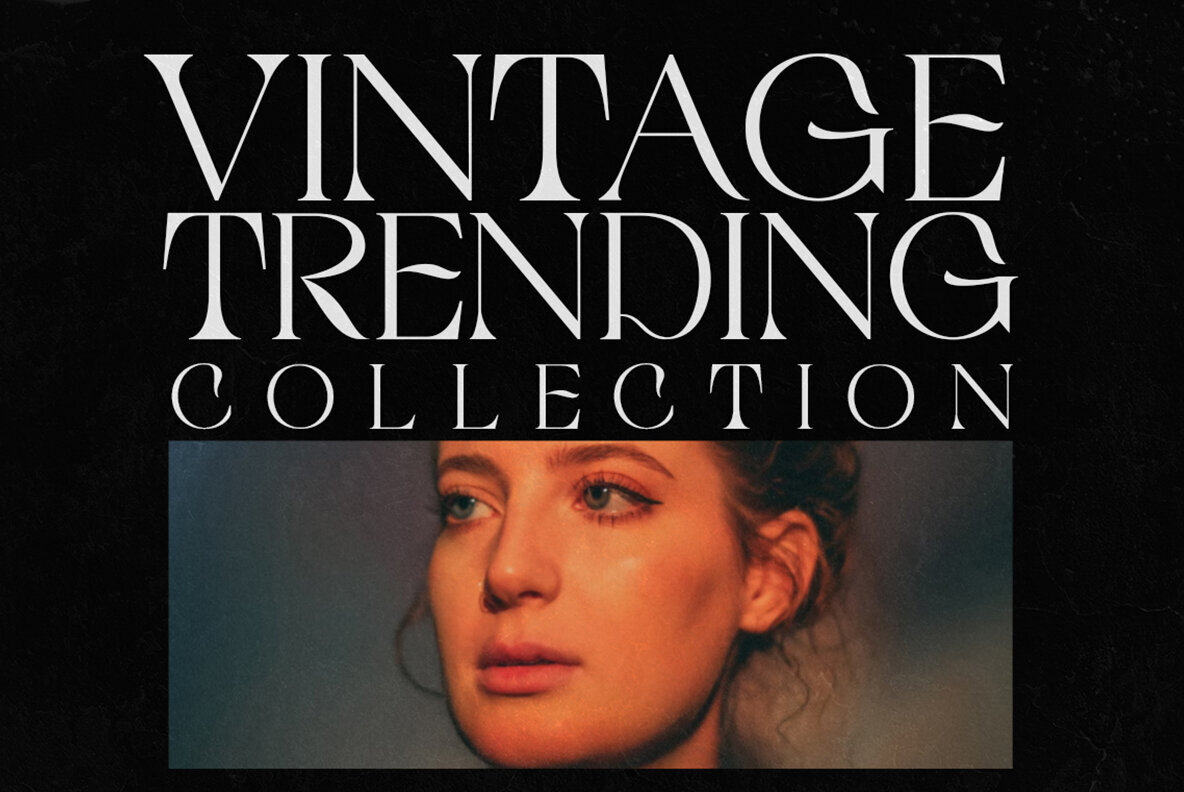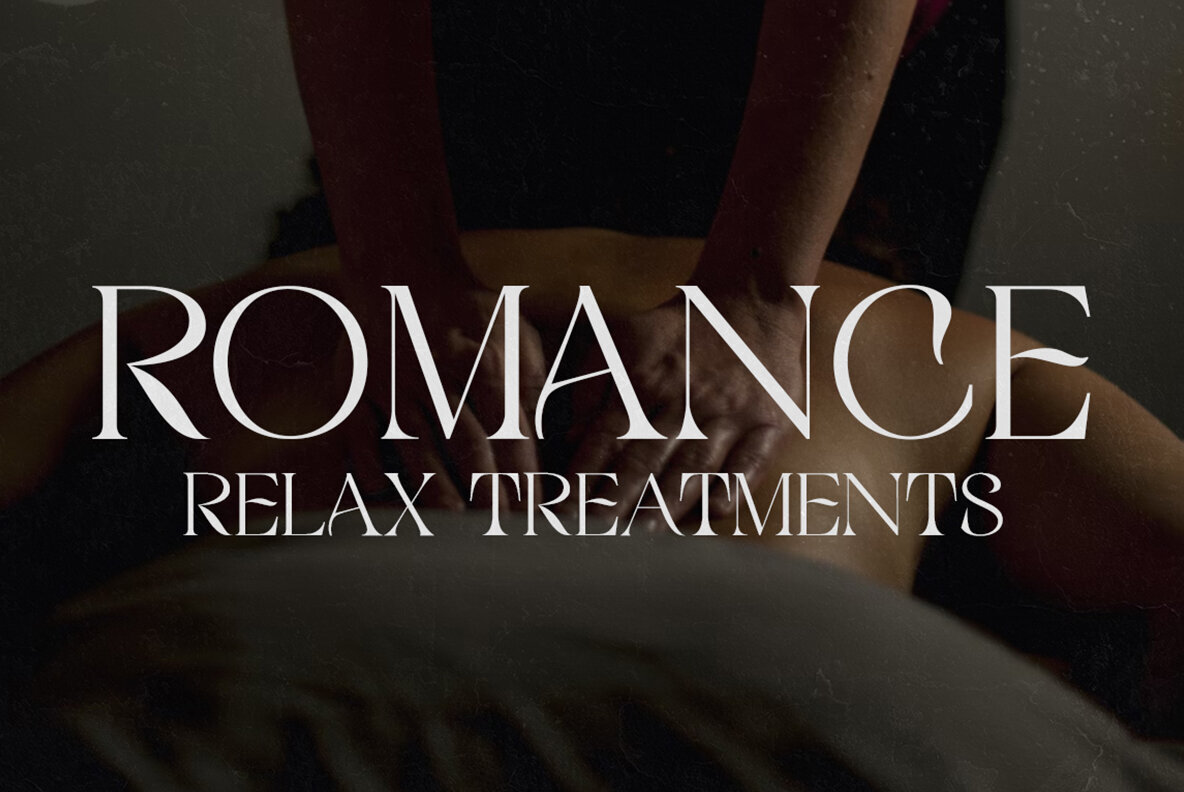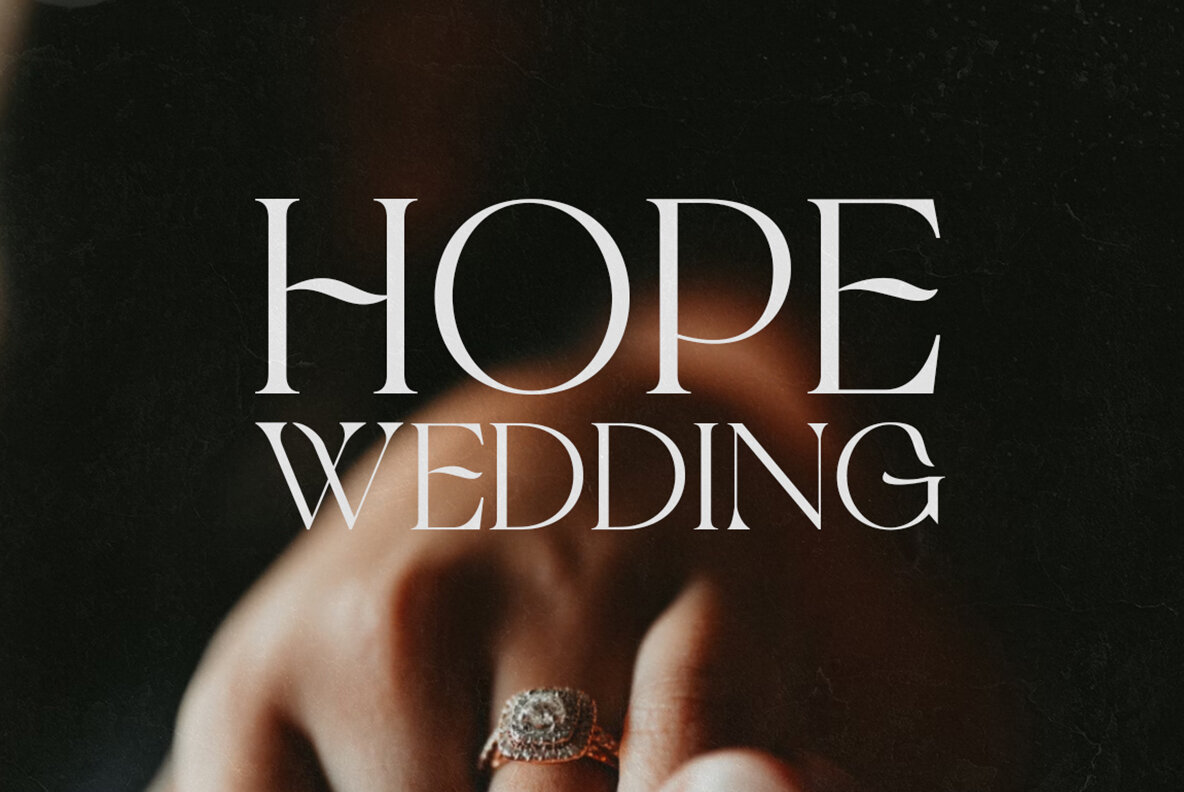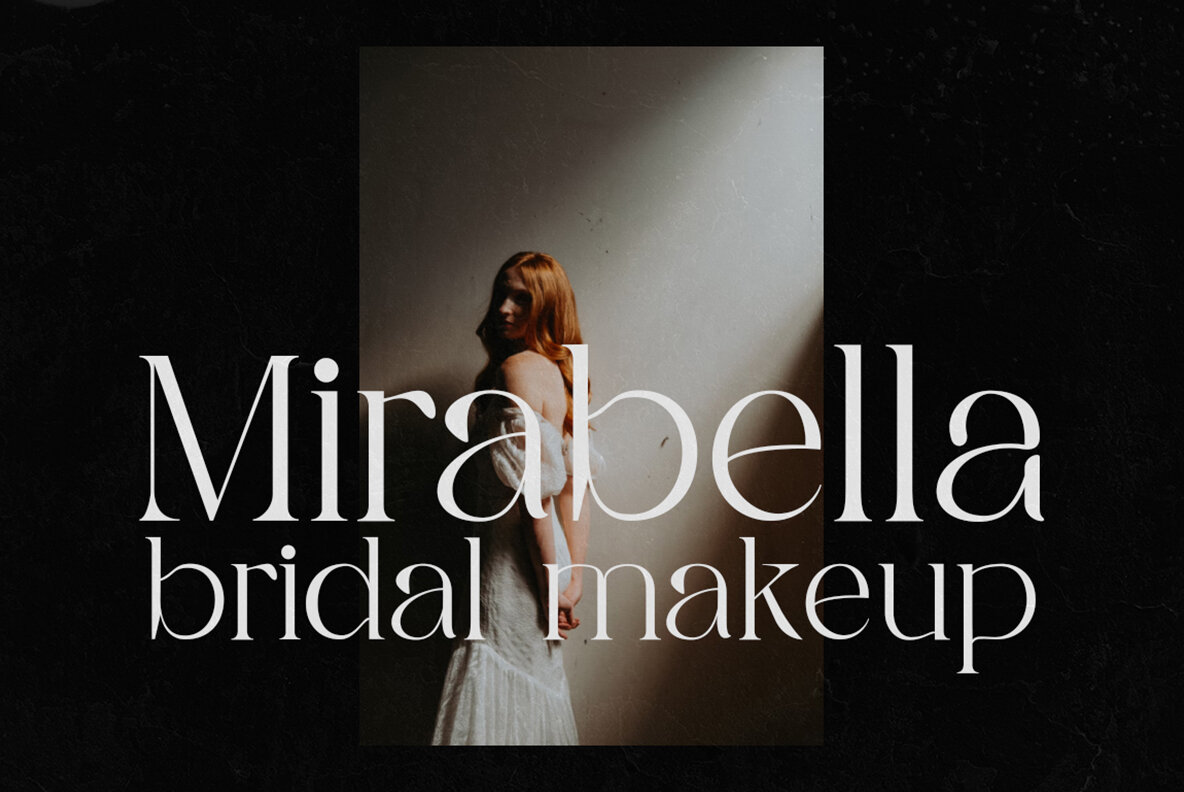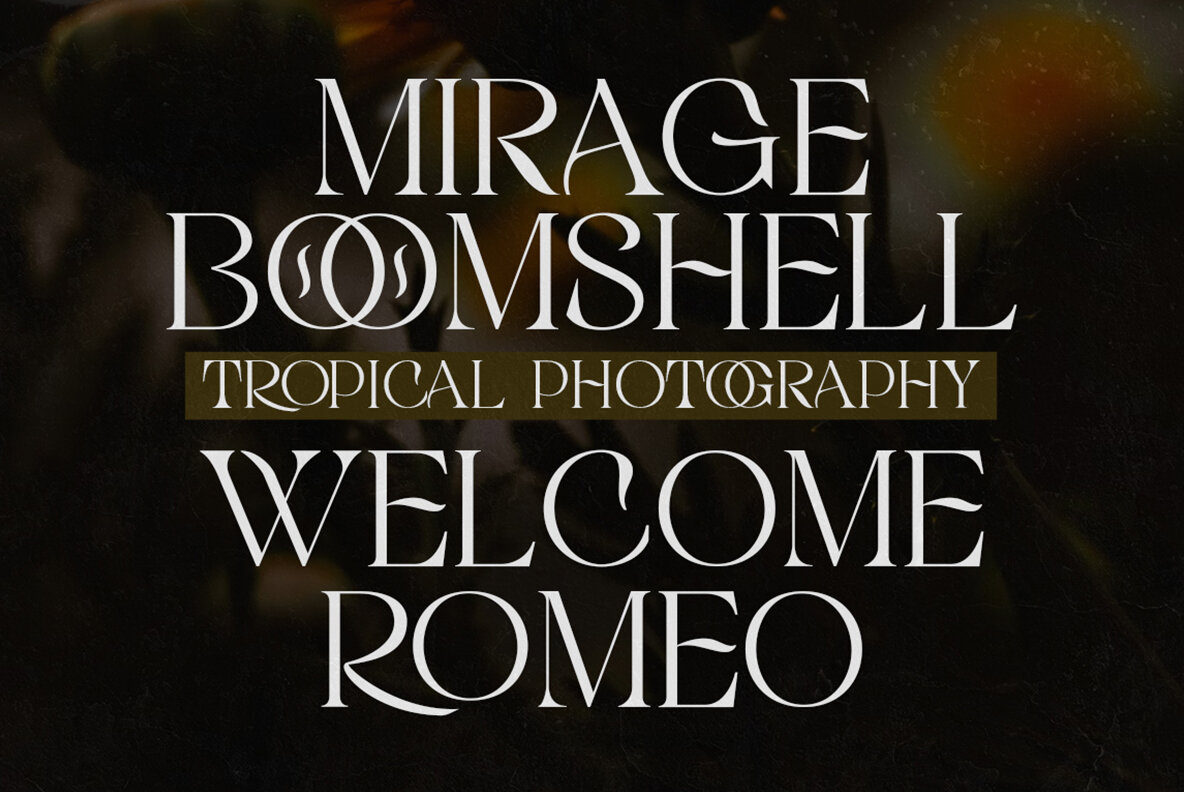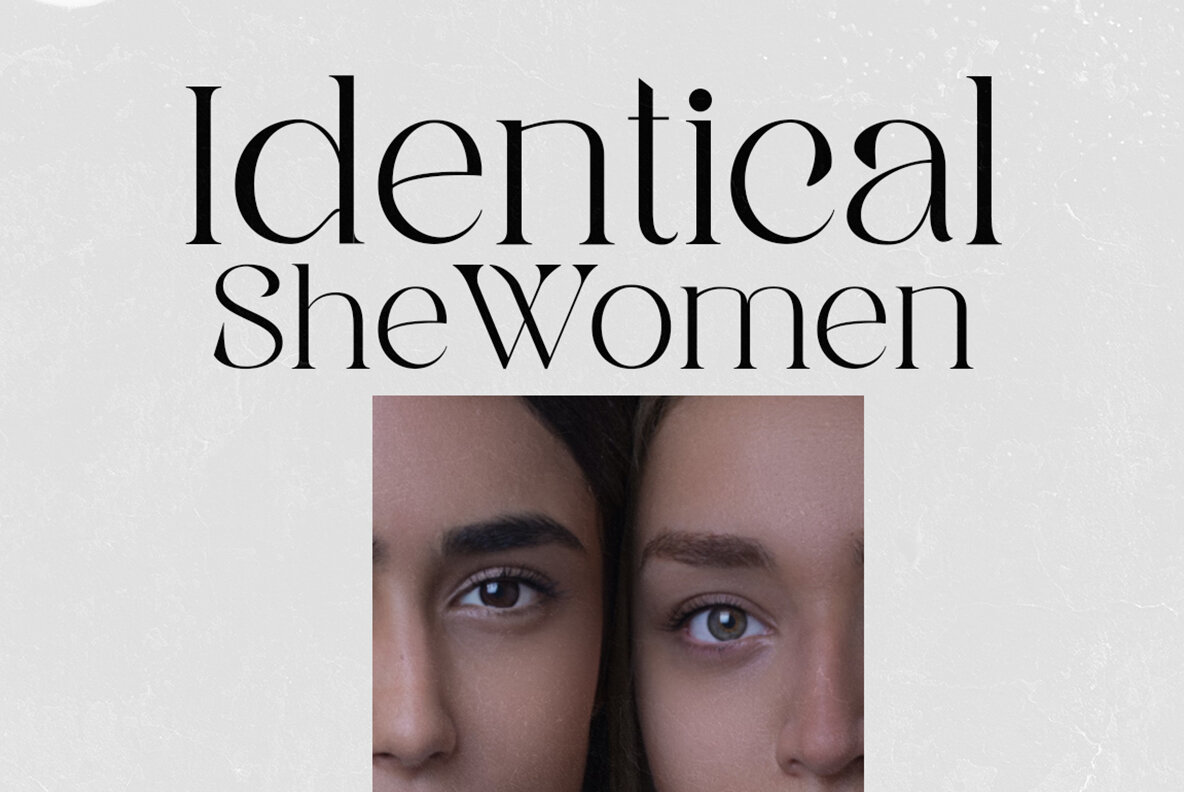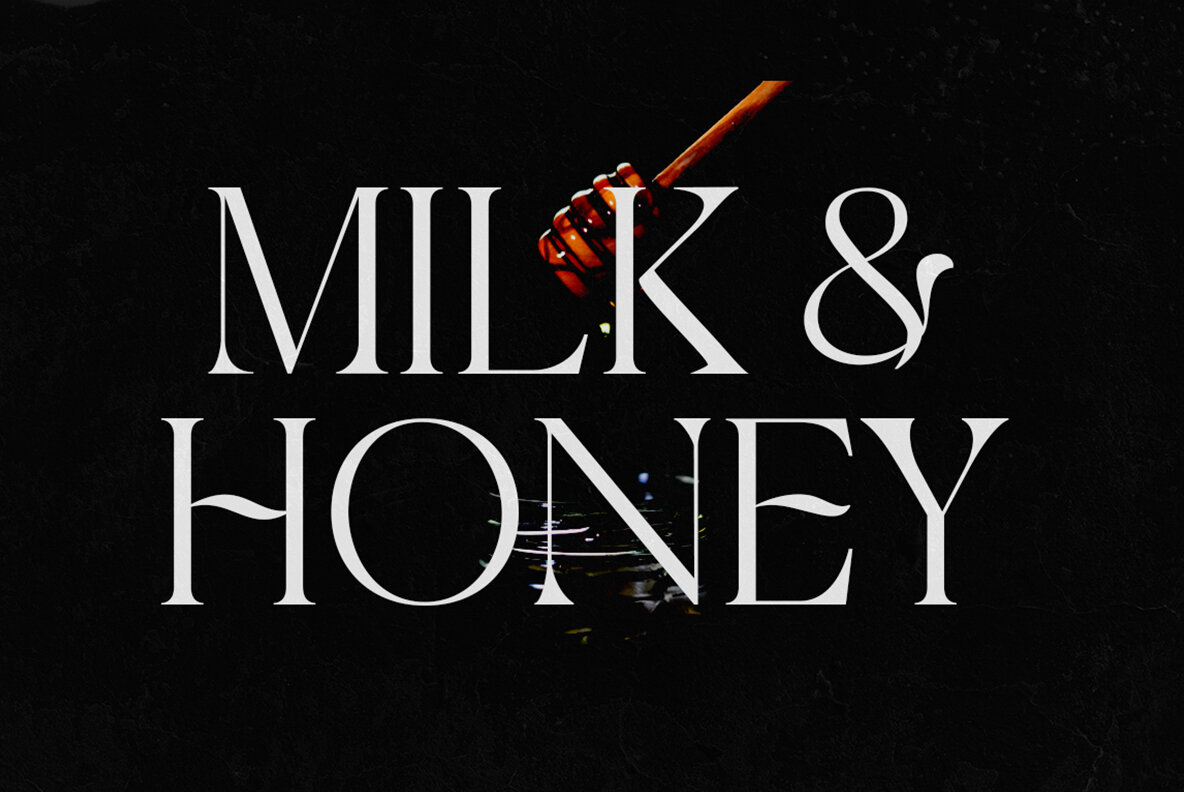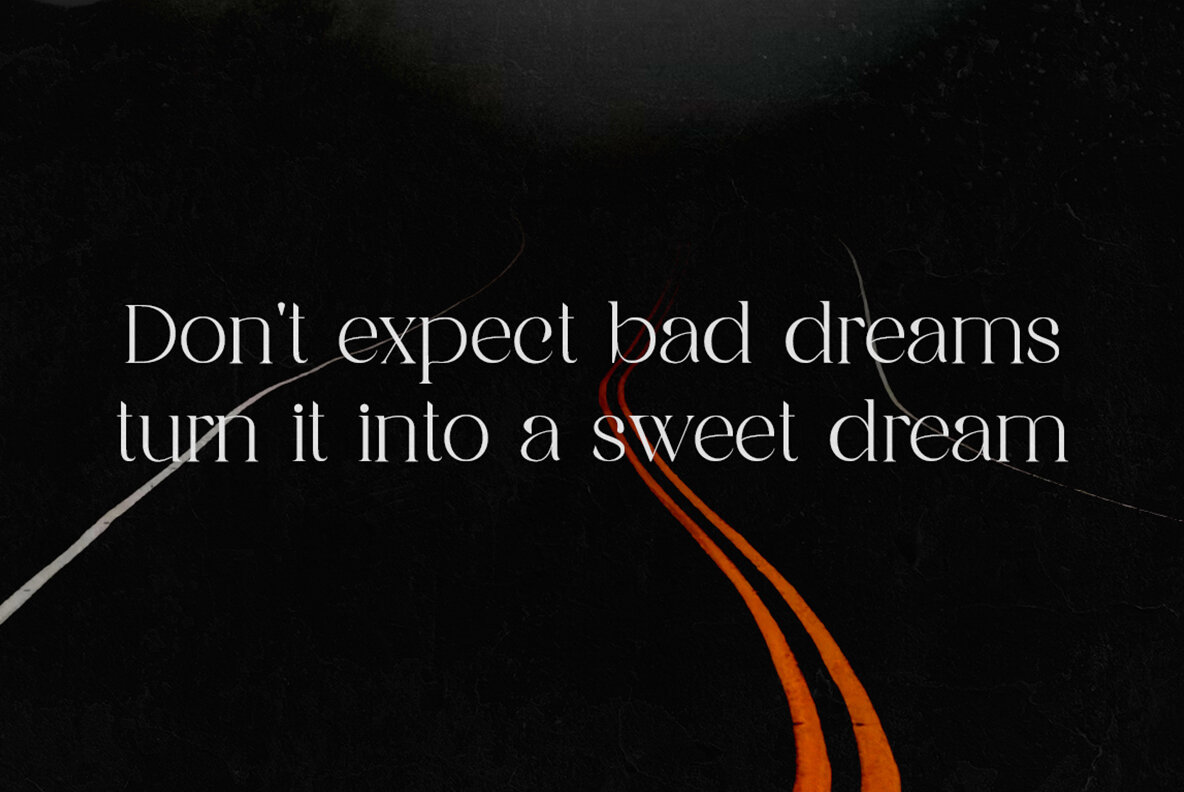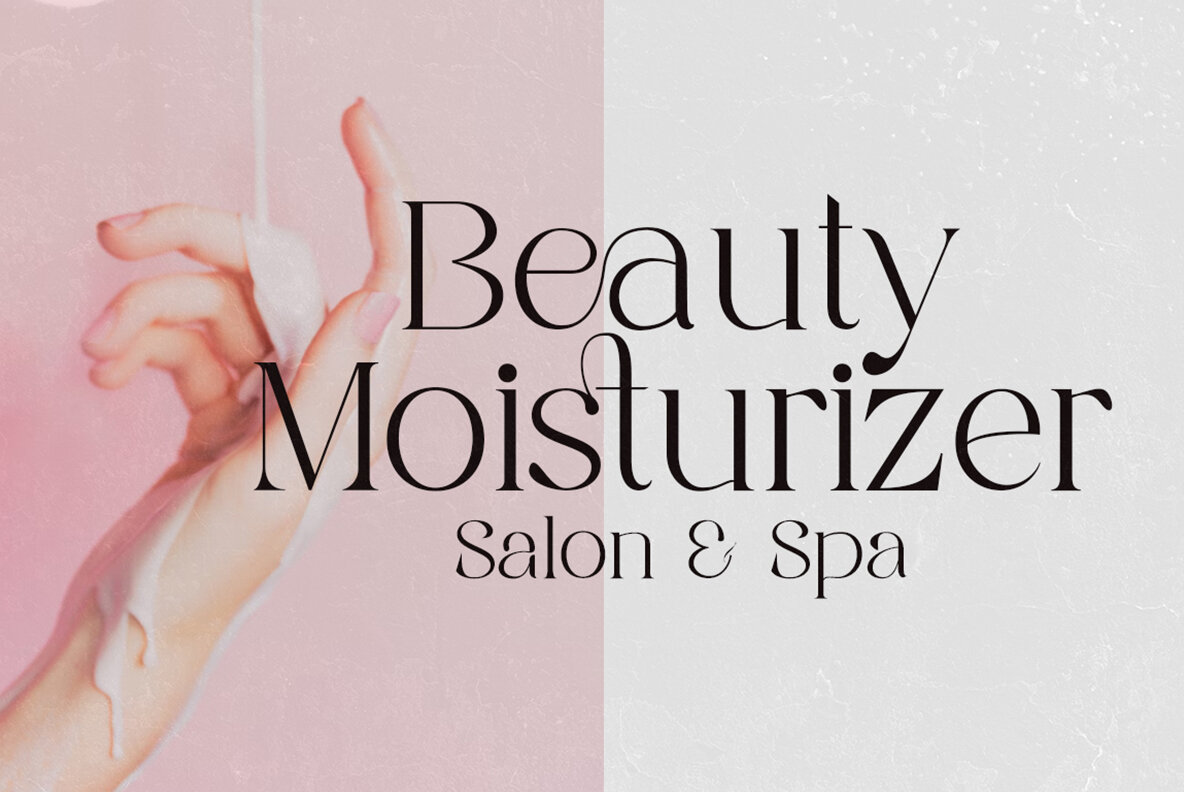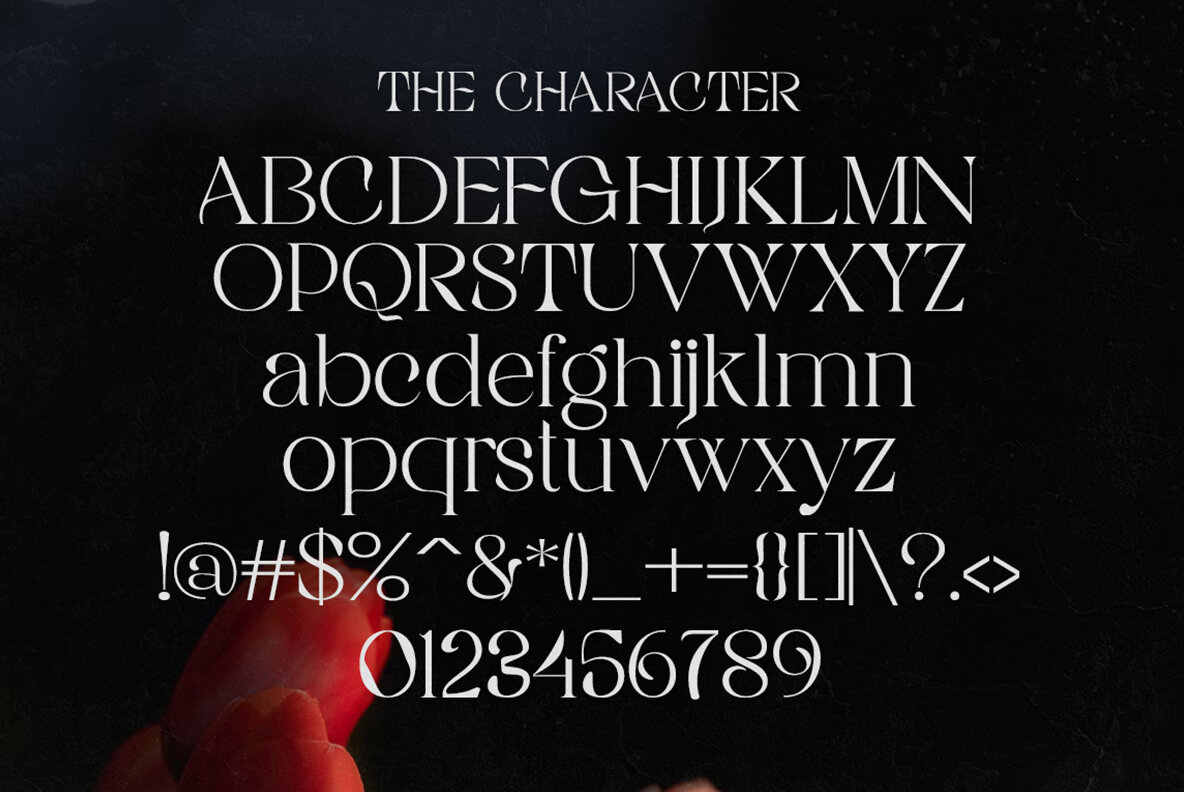
Rigata Font
RIGATA Regular
Rigata Serif offers an elegant and luxurious design, making it perfect for invitations, logos, branding, greeting cards, social media themes, and wedding invitations. Its smooth design and attractive appearance also make it an excellent choice for titles.Rigata: Elegant and Luxurious Serif